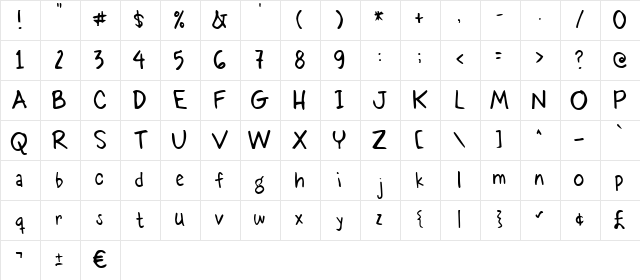
Complete 20 04, glyph index. Displaying only characters natively supported by 20 04, font.
20 is a composed and adaptable typeface that performs quietly and consistently across a wide range of design contexts.